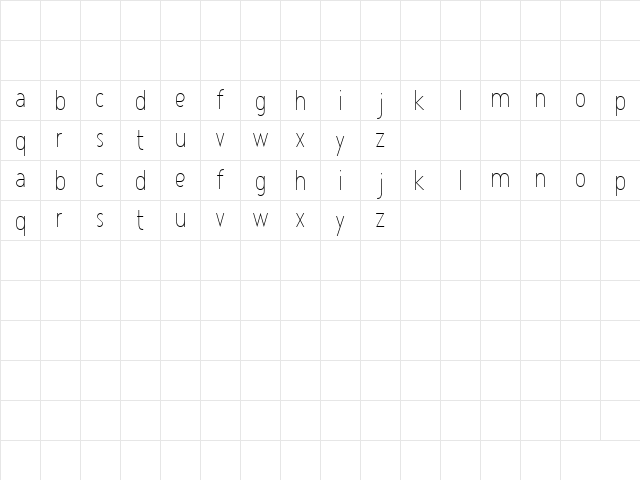
Atype 1 is a composed and adaptable typeface that performs quietly and consistently across a wide range of design contexts. Its slender proportions lend an understated elegance to any composition.